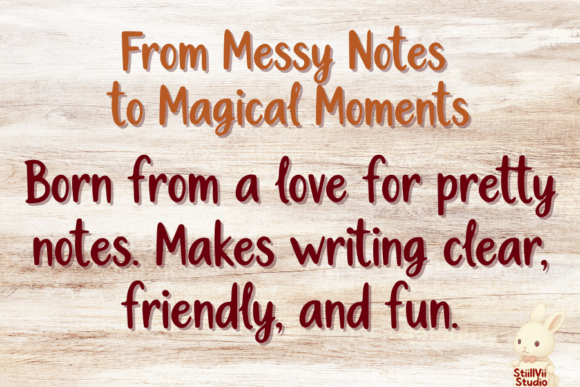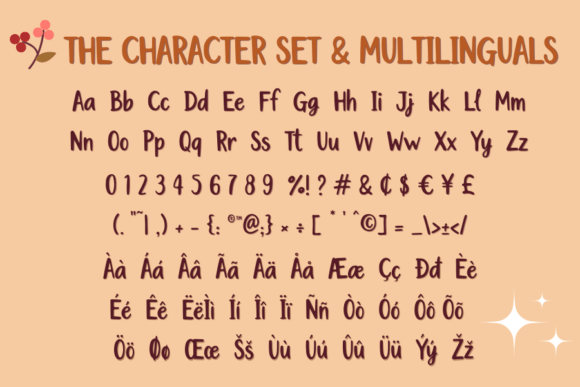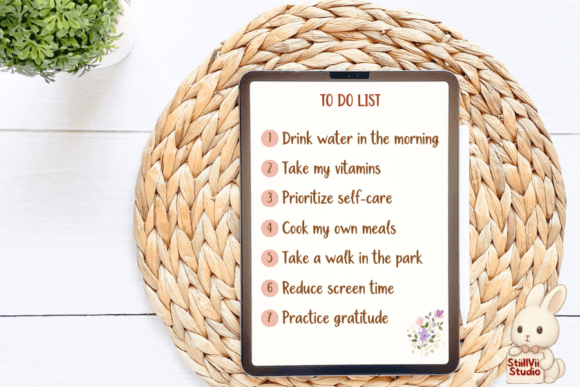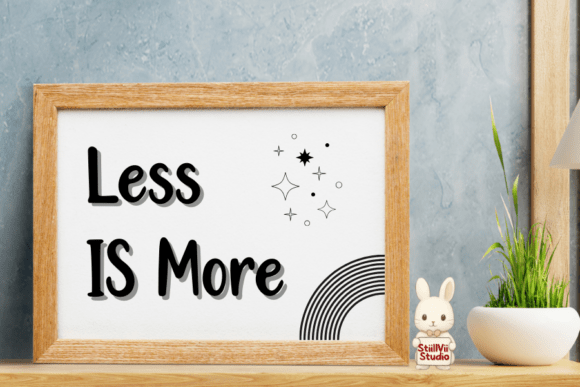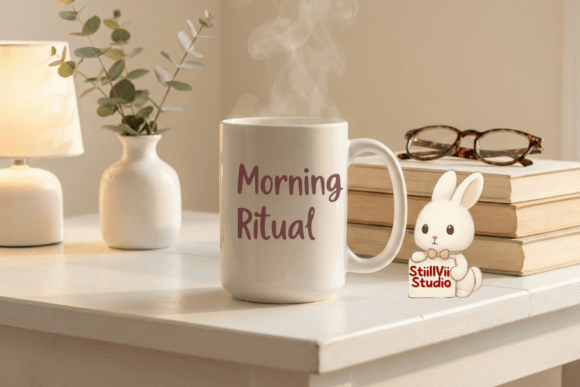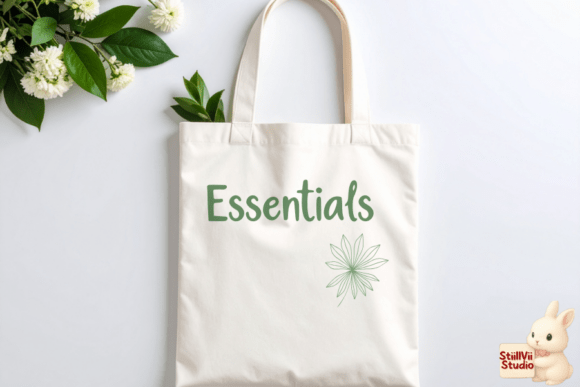
Discover the Charm of Cute Notes Font: Your Go-To Handwriting Companion
What Makes Cute Notes So Special?
Cute Notes is a friendly handwriting font designed specifically for planners, creatives, and anyone looking to add a personal touch to their digital or print projects. This font strikes the ideal balance between a playful, “studygram” vibe and professional clarity, making it perfect for teachers, students, and crafters alike.
Key Features of Cute Notes Font
- 🎈 Super Legible: Clean and easy to read, perfect for long texts and lists.
- 📅 Planner Perfect: Looks amazing in GoodNotes, Notability, and digital diaries.
- 👕 Merch Ready: Bold enough for T-shirts, mugs, tote bags, and Cricut projects.
- 🌍 Multilingual Support: Includes accents and special characters for international creators.
My Honest Review of Cute Notes
- ✨ Versatility: Cute Notes works beautifully across various platforms and projects.
- ✅ Readability: The font is incredibly easy to read, even at smaller sizes.
- 💕 Aesthetic Appeal: It adds a warm, personal touch to any design.
While Cute Notes is an excellent font, there are a few minor considerations to keep in mind:
- 🤔 Limited Formality: Cute Notes leans towards a casual, friendly vibe, which might not be suitable for very formal projects.
- ⚠️ Glyph Variety: While it includes a range of accents and special characters, it may not have every possible glyph for every language.
The Story Behind Cute Notes
Cute Notes was designed with the intention of creating a friendly, approachable handwriting font that could be used across various platforms and projects. The designer aimed to craft a font that felt both personal and professional, making it perfect for digital planners, crafts, and creative endeavors.
| Font Name | Cute Notes Font |
| Can I use Cute Notes for my digital planner? | Absolutely! Cute Notes is optimized for use in digital planners, especially in apps like GoodNotes and Notability. |
| Does Cute Notes support multilingual characters? | Yes, Cute Notes includes a range of accents and special characters, supporting various languages. |
| Can I use Cute Notes for merchandise like T-shirts and mugs? | Yes, Cute Notes is bold and clear enough for use on merchandise, making it perfect for your craft projects. |